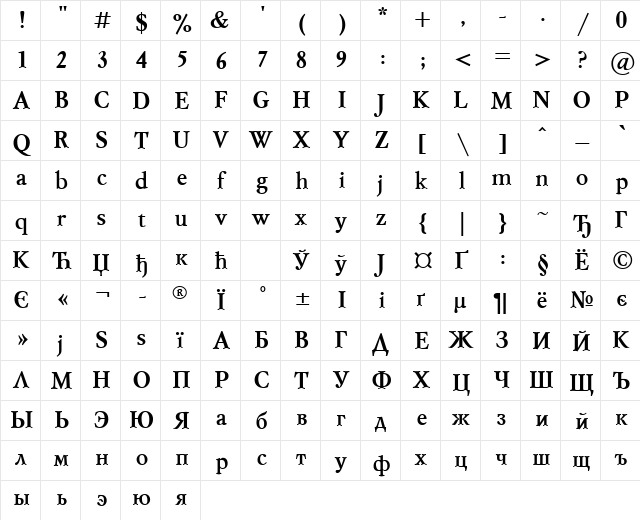
MyslCTT Bold Font Preview
MyslCTT Bold
Design Context for MyslCTT Typeface
MyslCTT offers clean, dependable letterforms without strong stylistic allegiance, making it a practical choice for designers who need flexibility. Its bold stroke weight gives it real presence on the page.
Pro Tip: Pair MyslCTT with a font of contrasting weight or personality to build a more expressive typographic hierarchy.